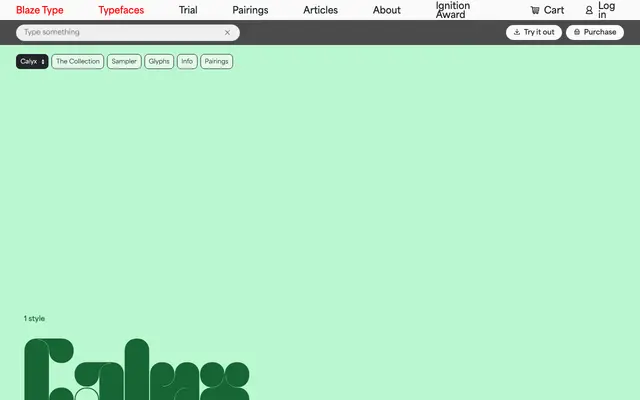
Calyx
A single-weight modular display face by Anne-Dauphine Borione, drawing on botanical petal forms to produce chunky, retro letterforms with a 1960s–70s character.
Designed by Anne-Dauphine Borione and released in 2023, Calyx takes inspiration from flower petals to build blocky, modular glyphs that carry a distinct retro warmth. With only one weight, the face relies entirely on the character of its shapes to make an impression, which it does best at headline sizes and in graphic work. Coverage extends across Latin European languages with TTF and WOFF export formats available.
A blocky, modular typeface with botanical petal-inspired forms and a retro 1960s–70s character, explicitly designed for display use and graphic exploration rather than text settings.